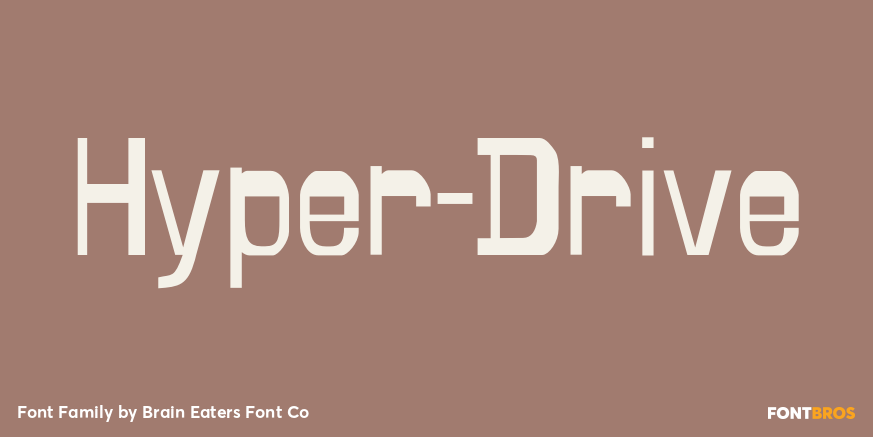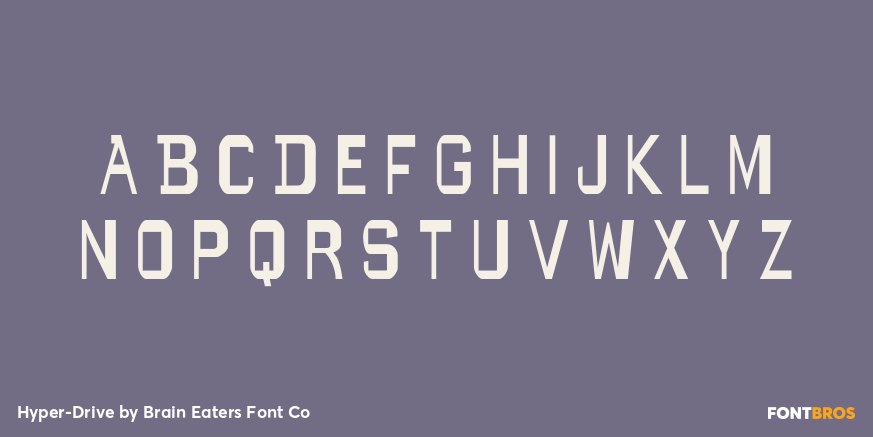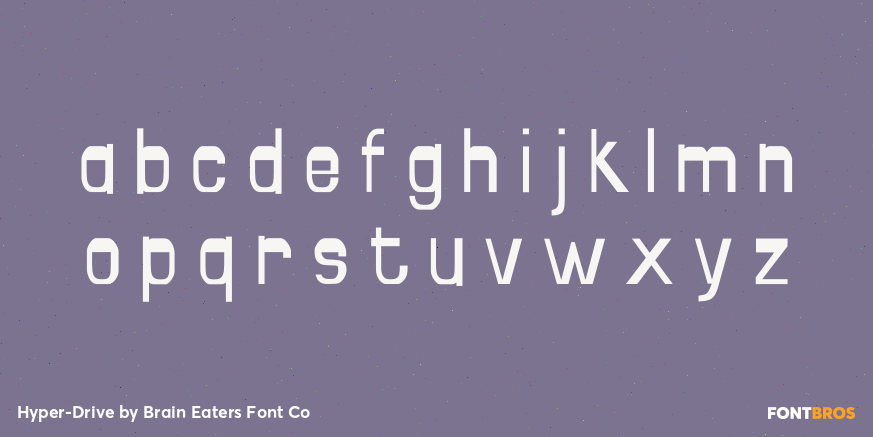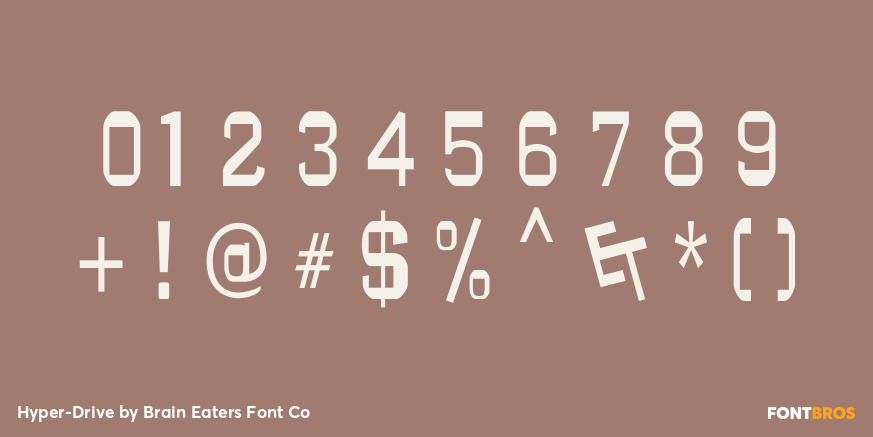
Hyper-Drive
Font Family by Brain Eaters Font Co
Evidently inspired by mankinds enduring fascination with the automobile and Futurism! A wonderful design for labeling items that need a strong presence.